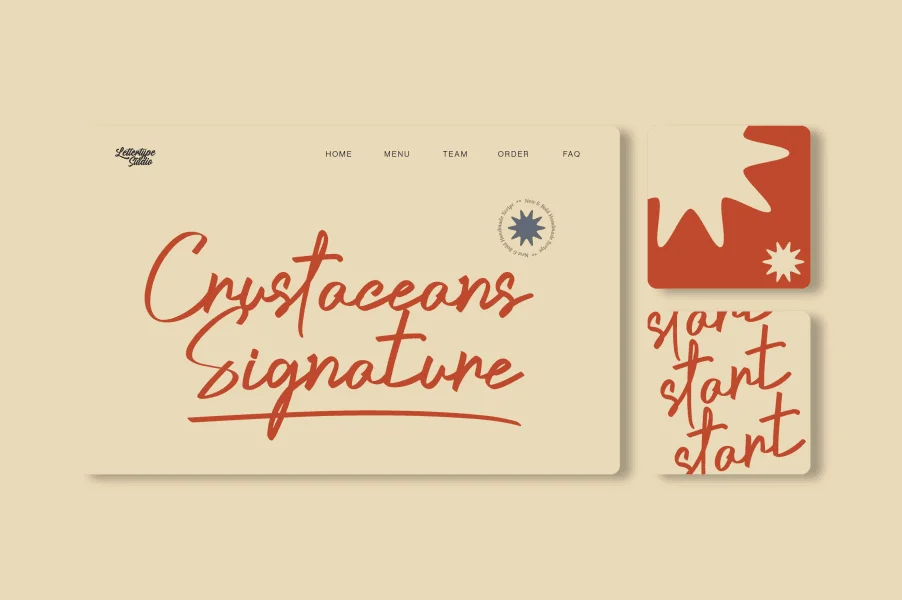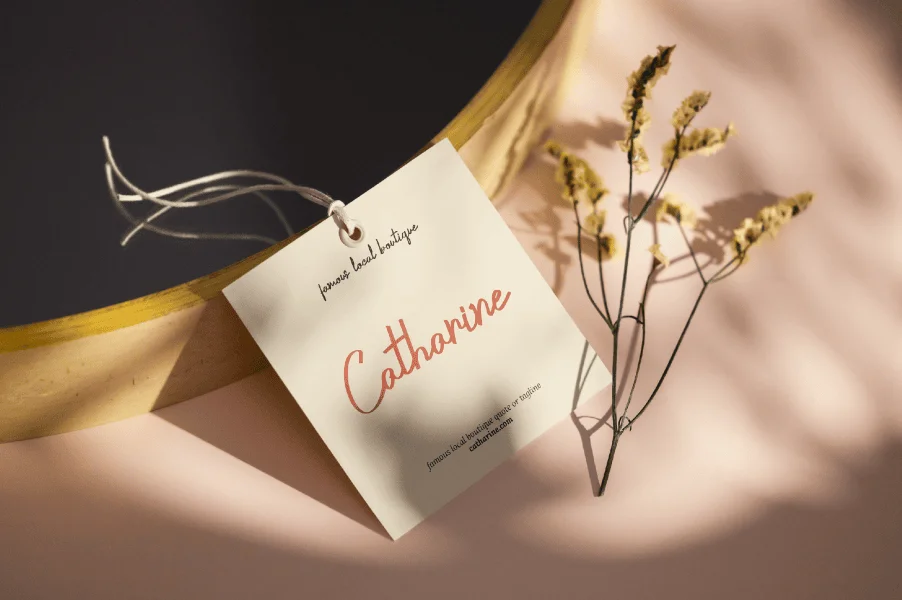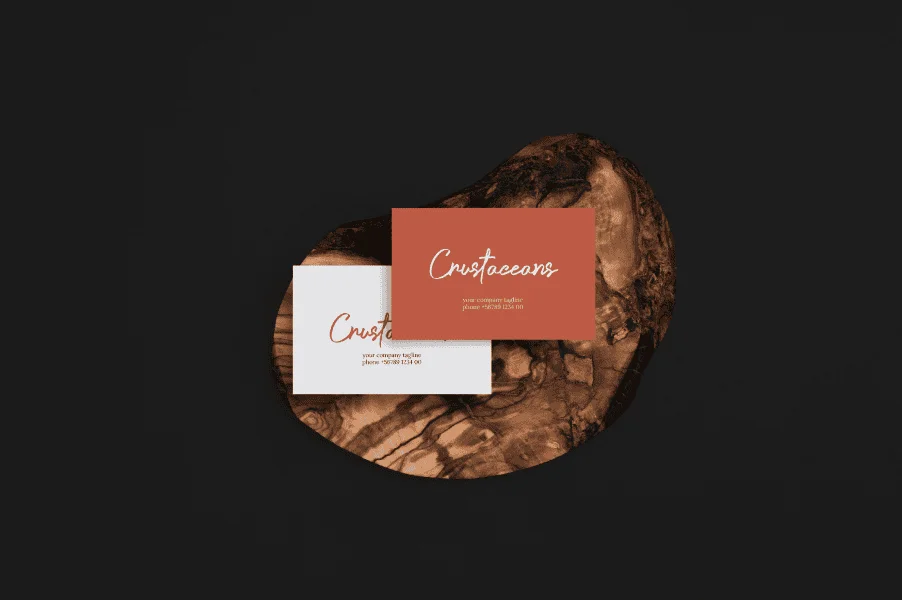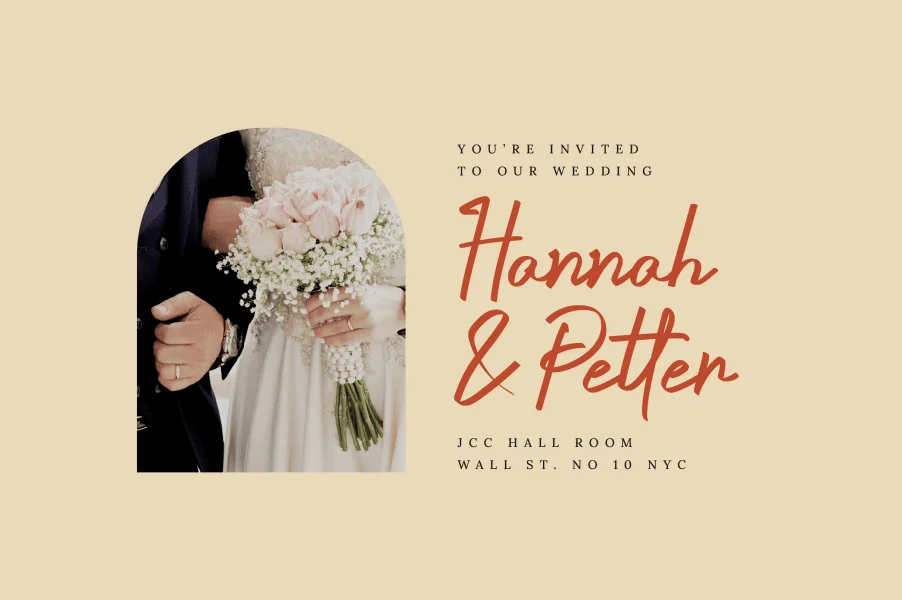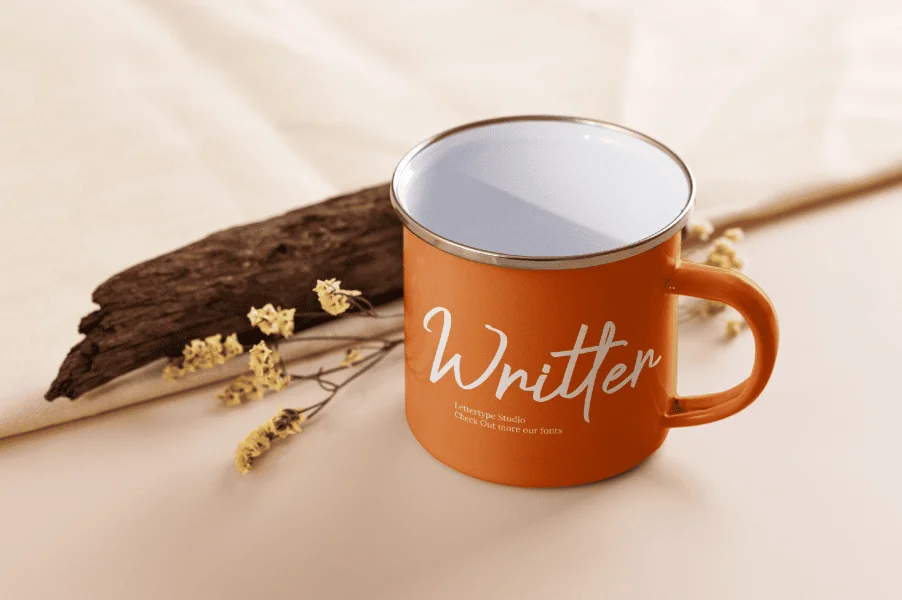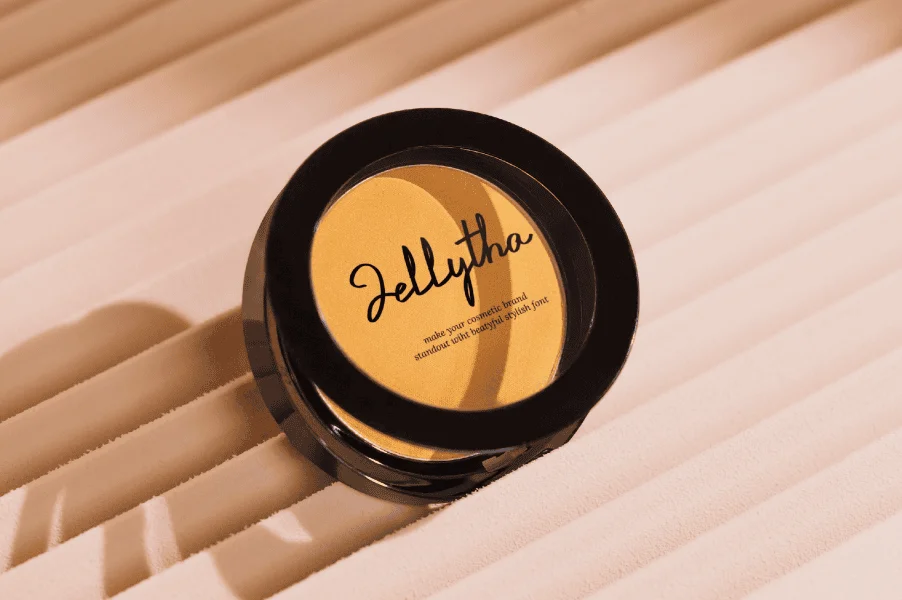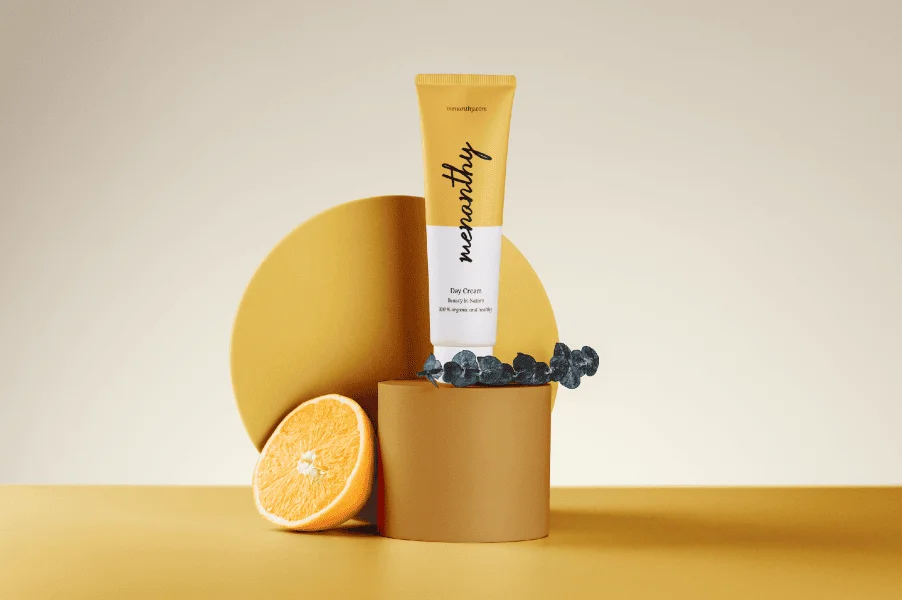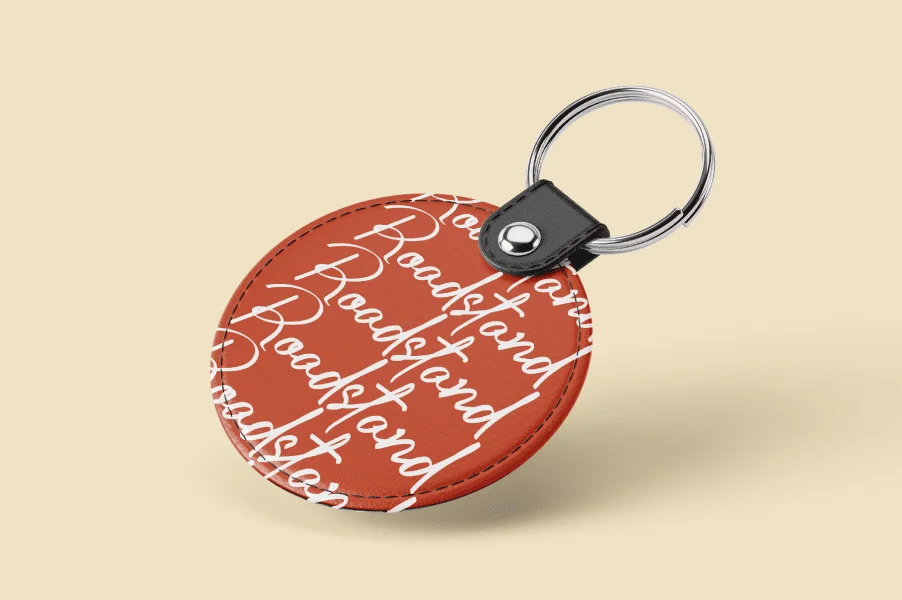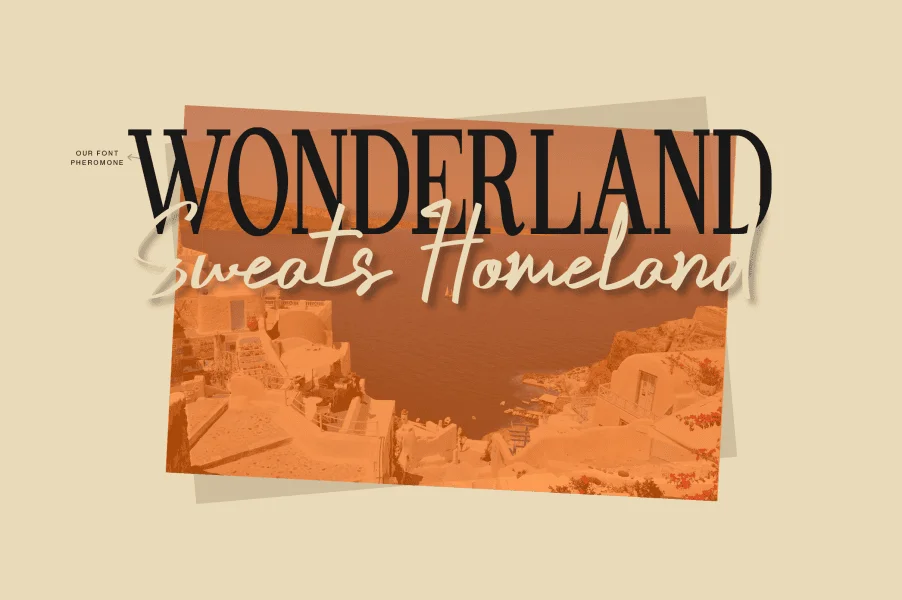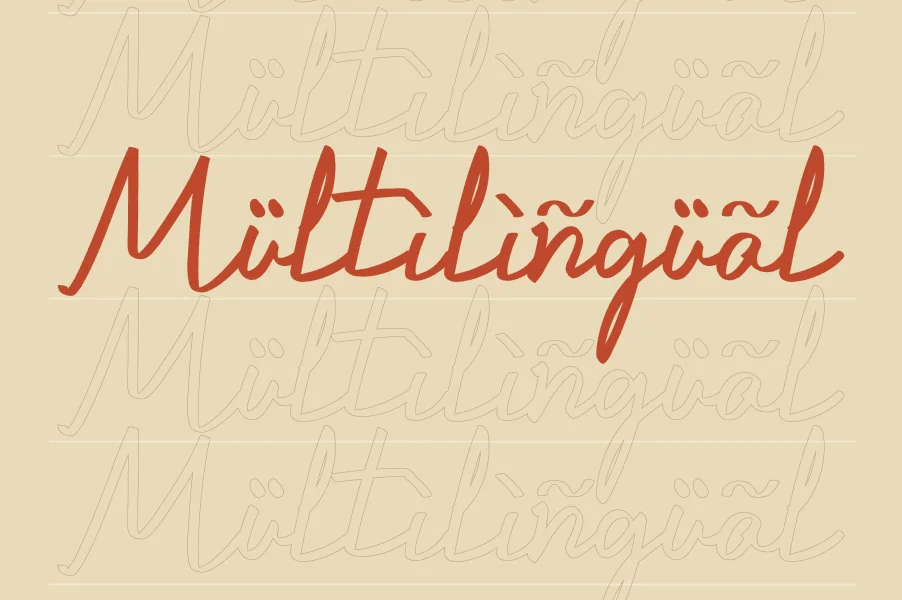
Crustaceans Signature Font is perfect for photography, watermark, social media posts, advertisements, logos & branding, invitation, product designs, label, stationery, wedding designs, product packaging, subheader or header, special events, or anything that need bold script taste.
Diki Pradipta Tri Atmojo –Lettertype Studio